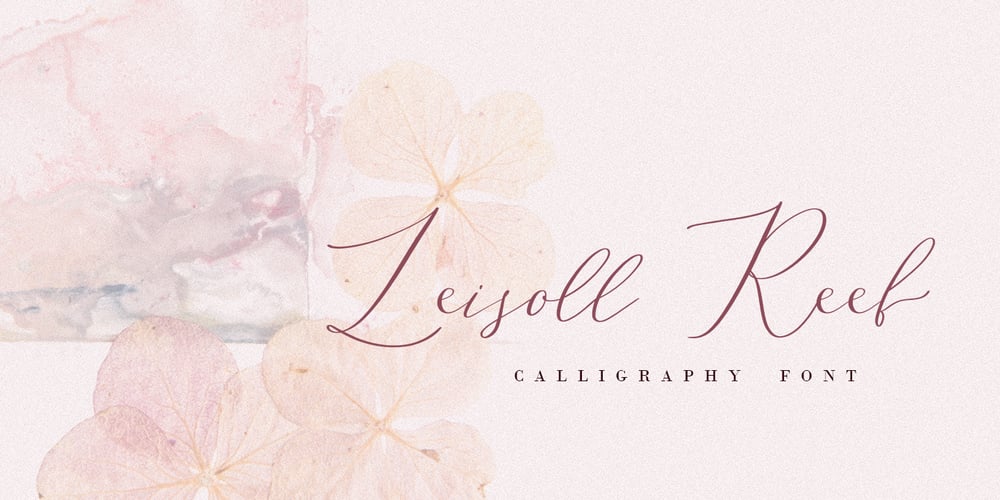
Leisoll Reef Font Family was designed by Tanya Amos and published by Tanincreate. Leisoll Reef contains 1 styles and family package options. Leisoll Reef is an elegant modern calligraphy script created mostly for feminine designs – branding projects, social media, wedding invitation, labels, greeting cards, packaging, logo design, news, titling, headlines, posters, signboards and more. It features multi language support (for most of Western Europe), contains 256 glyphs with some Open Type features – standard ligatures, alternates for low case letters (beginning and ending swashes).